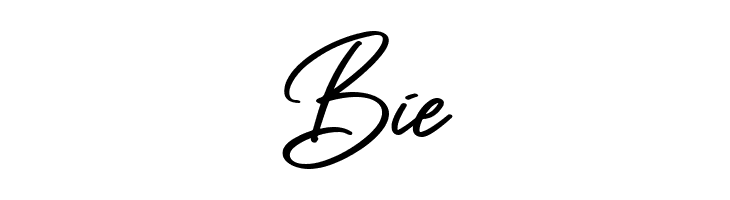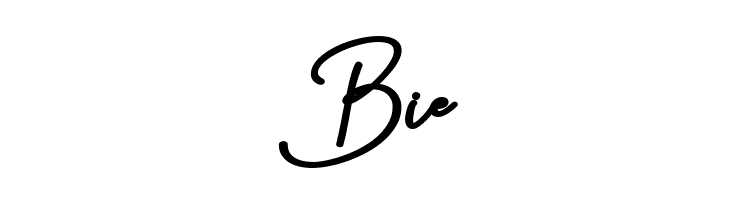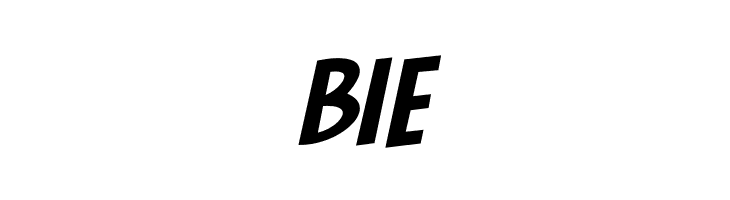
A classic, elegant script font with bold, flowing letterforms and high contrast.
A flowing, cursive font with elegant, sweeping strokes and artistic flair.
A playful, handwritten font with smooth, rounded edges and a casual style.
A bold, hand-drawn font with a textured, expressive style.
A playful, hand-drawn font with a whimsical and dynamic style.
A bold, hand-crafted font with a rugged and angular design.
A bold, hand-drawn font with a rugged and impactful design.
An elegant script font with flowing, cursive characters.
A bold, distressed font with a vintage, rugged appearance.
A bold, playful font with exaggerated curves and a whimsical style.
A bold, tall, and narrow font with consistent stroke widths for a strong, assertive appearance.
A fluid and elegant script font with a natural handwriting style.
A bold, playful font with rounded, hand-drawn characters.
A bold, playful font with rounded edges and a friendly appearance.
A bold and playful font with exaggerated curves and a whimsical style.
A playful, bold script font with smooth curves and thick strokes.
Elegant handwritten script font.
A bold, expressive script font with fluid, dynamic letterforms.
Handwritten cursive script font.
A bold, playful font with a bubbly, cartoon-like appearance.
A bold, brush-style font with dynamic and expressive strokes.
A bold, brush-style italic font with dynamic, hand-painted strokes.
A playful, bold, and hand-drawn style font with a whimsical appearance.
A bold, playful font with rounded characters and a whimsical style.
A bold, italic font with a dynamic and energetic style.
A bold, italic script font with a playful and dynamic style.
A bold, brush-style font with dynamic and energetic strokes.
A bold, geometric font with high contrast and modern, angular design.
A lively, cursive font with a natural, handwritten style.
A modern, geometric font with rounded edges and uniform stroke width.
A casual, dynamic handwritten font with fluid, slightly slanted strokes.
A dynamic, flowing script font with elegant, cursive letterforms.